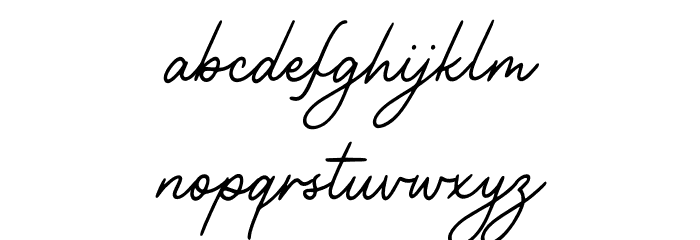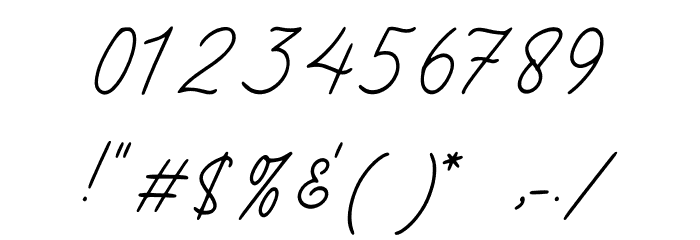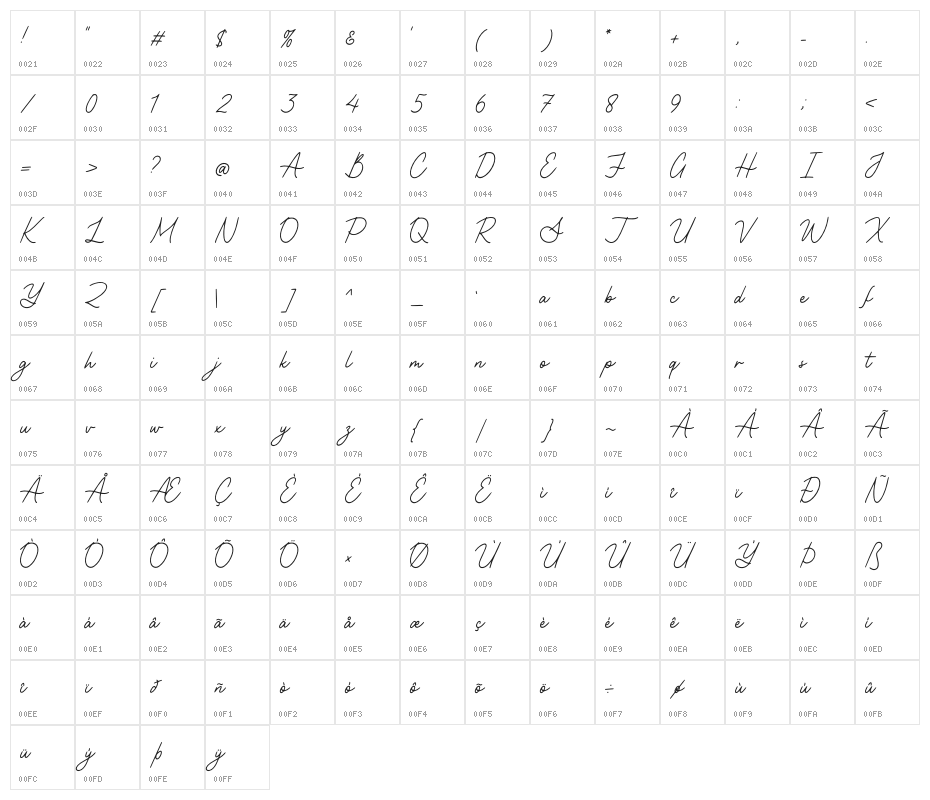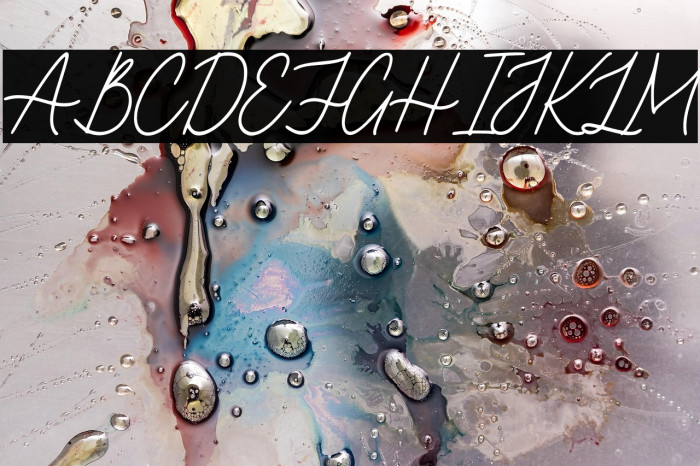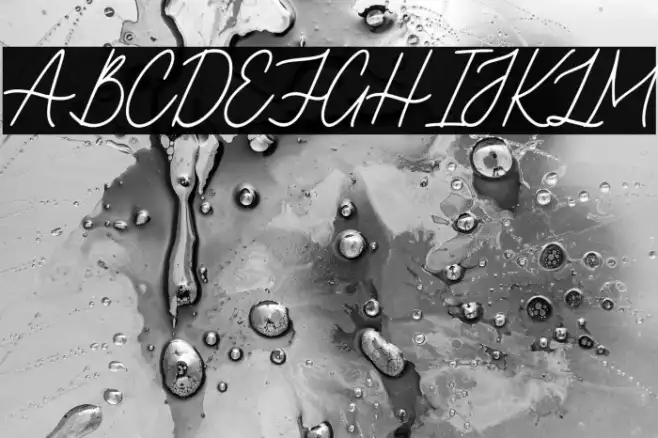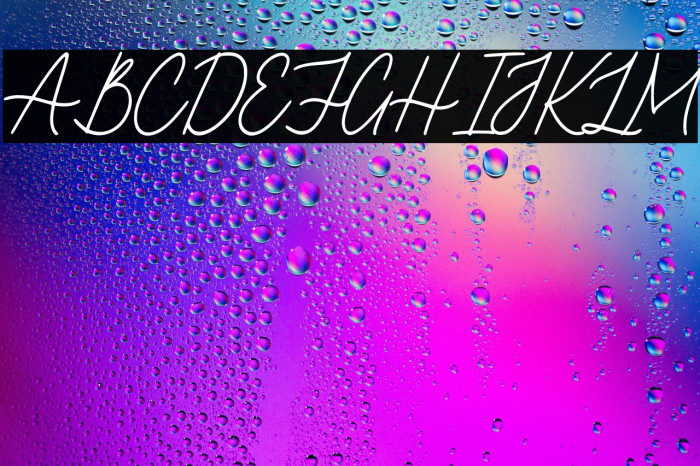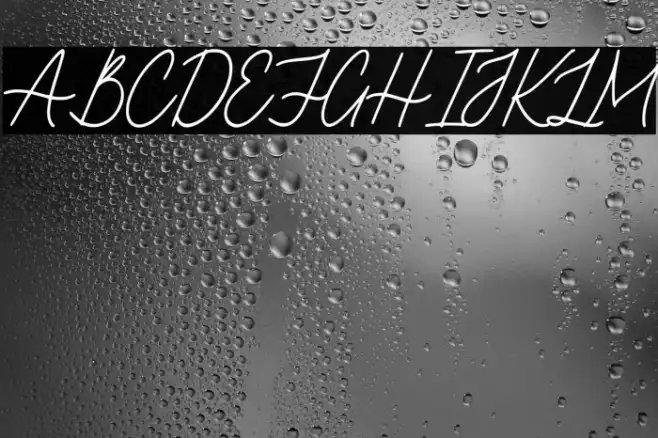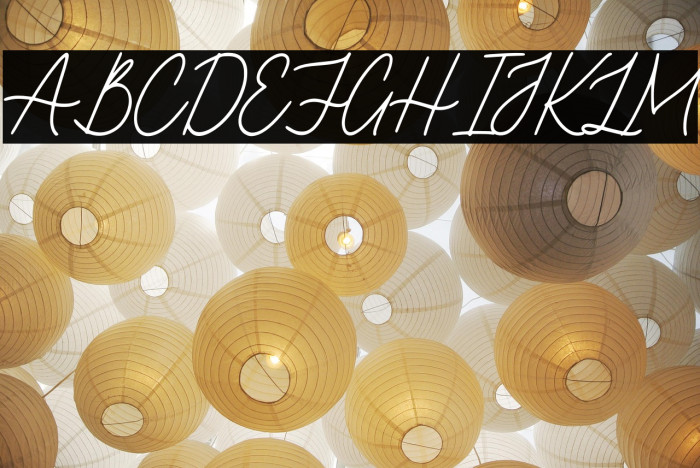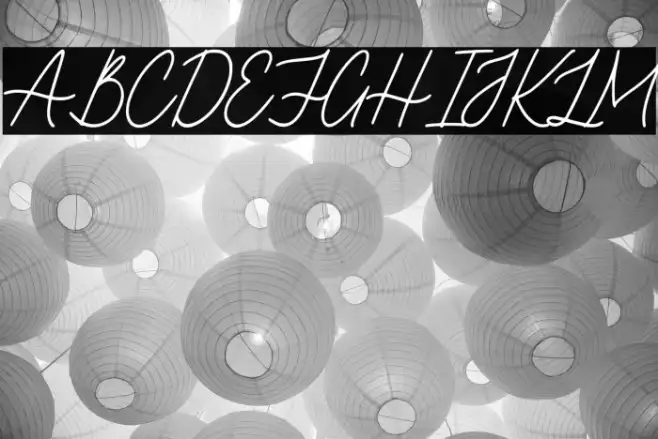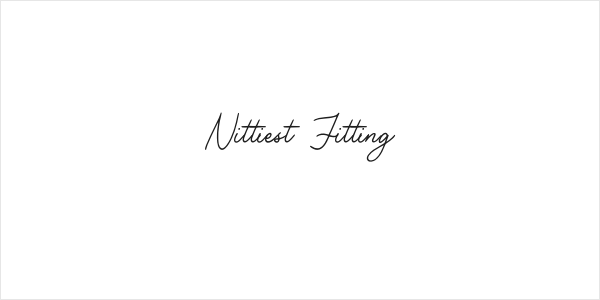
Nittiest Fitting Font
This font features a fluid, cursive style that mimics elegant handwriting. The letters are connected in a seamless flow, creating a sense of movement and grace. The uppercase letters are slightly more elaborate, with sweeping lines and loops that add a touch of sophistication. The lowercase letters maintain a consistent slant, contributing to the overall cohesive appearance. Numbers and special characters are designed to match the script style, ensuring uniformity across all text. This font's delicate strokes and smooth curves make it ideal for projects that require a personal, artistic touch.
A fluid, cursive script font with elegant, connected letters.
- Font: Nittiest Fitting
- Proposed Projects: Ideal for wedding invitations, greeting cards, personal branding, and artistic projects.
- Category: Script
- Overall Style: Elegant, Artistic
- Use Case: Logos, Invitations, Personal Branding